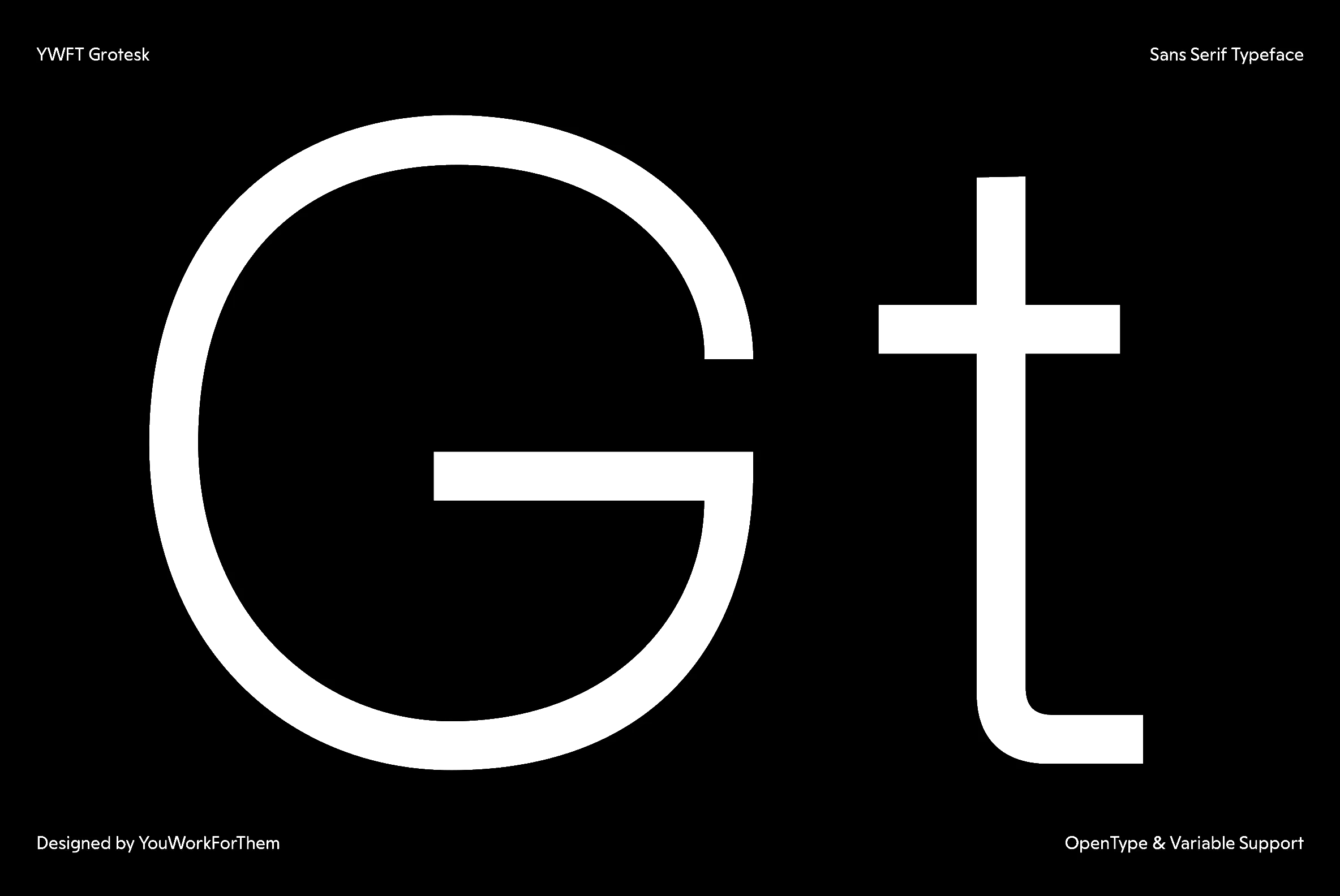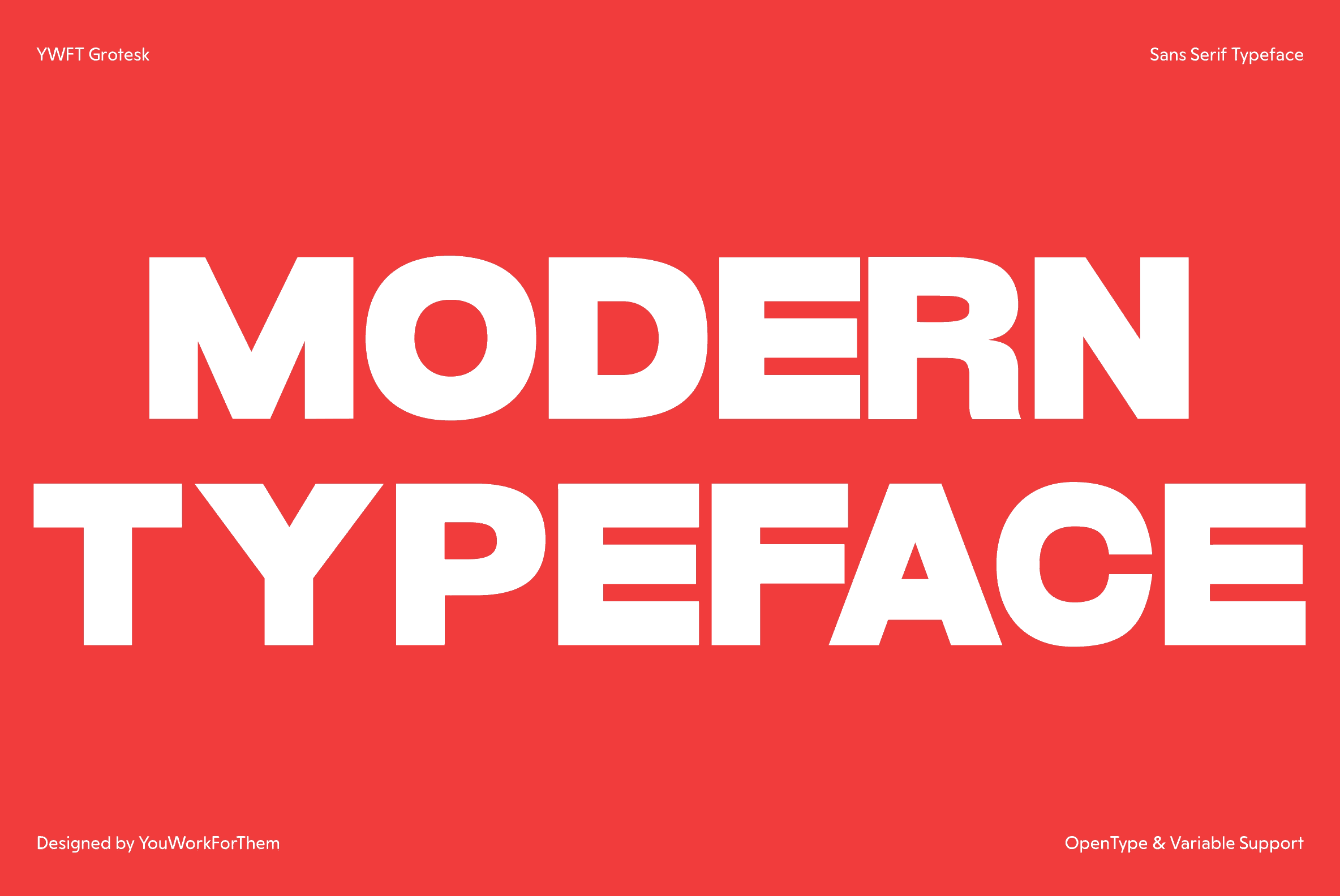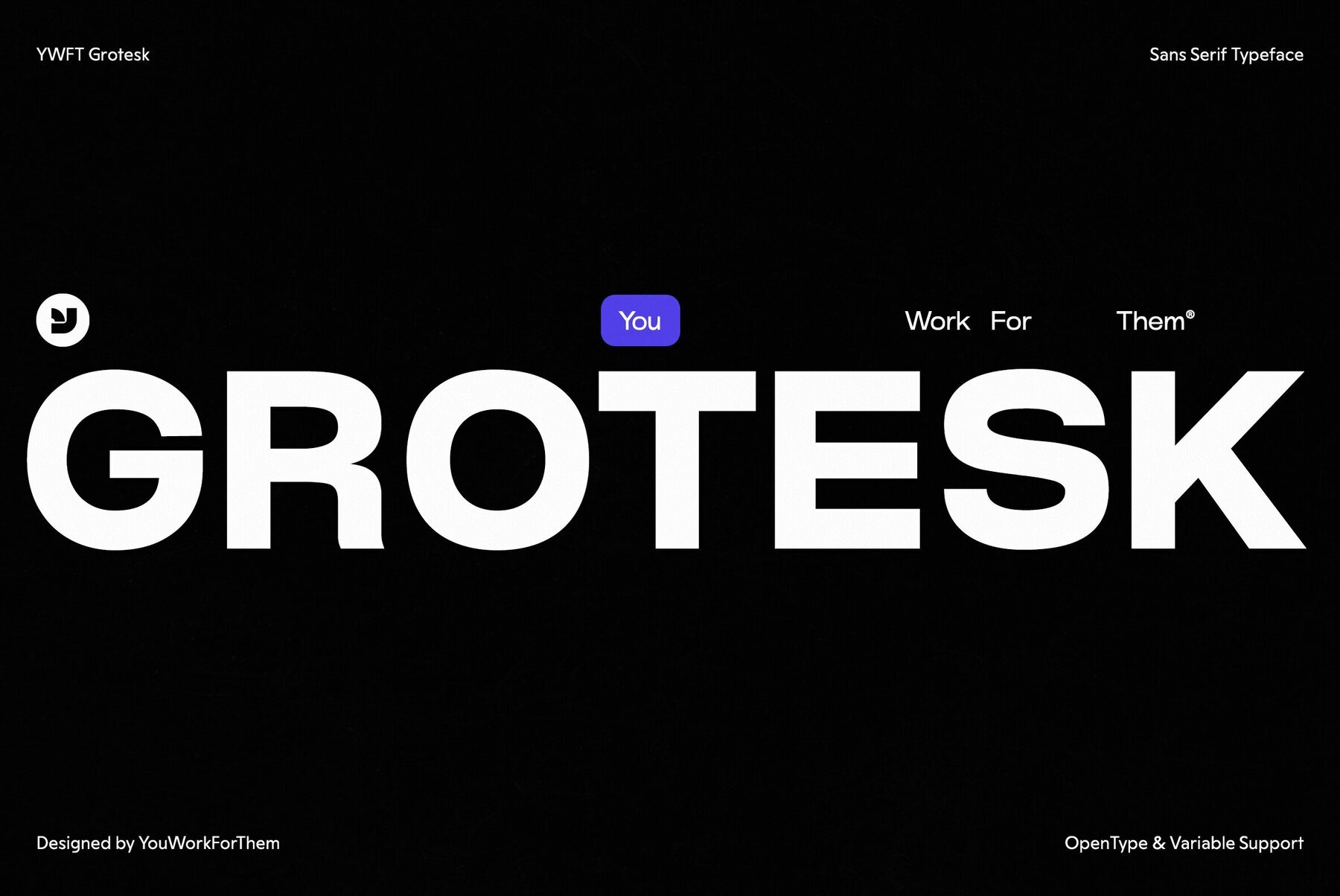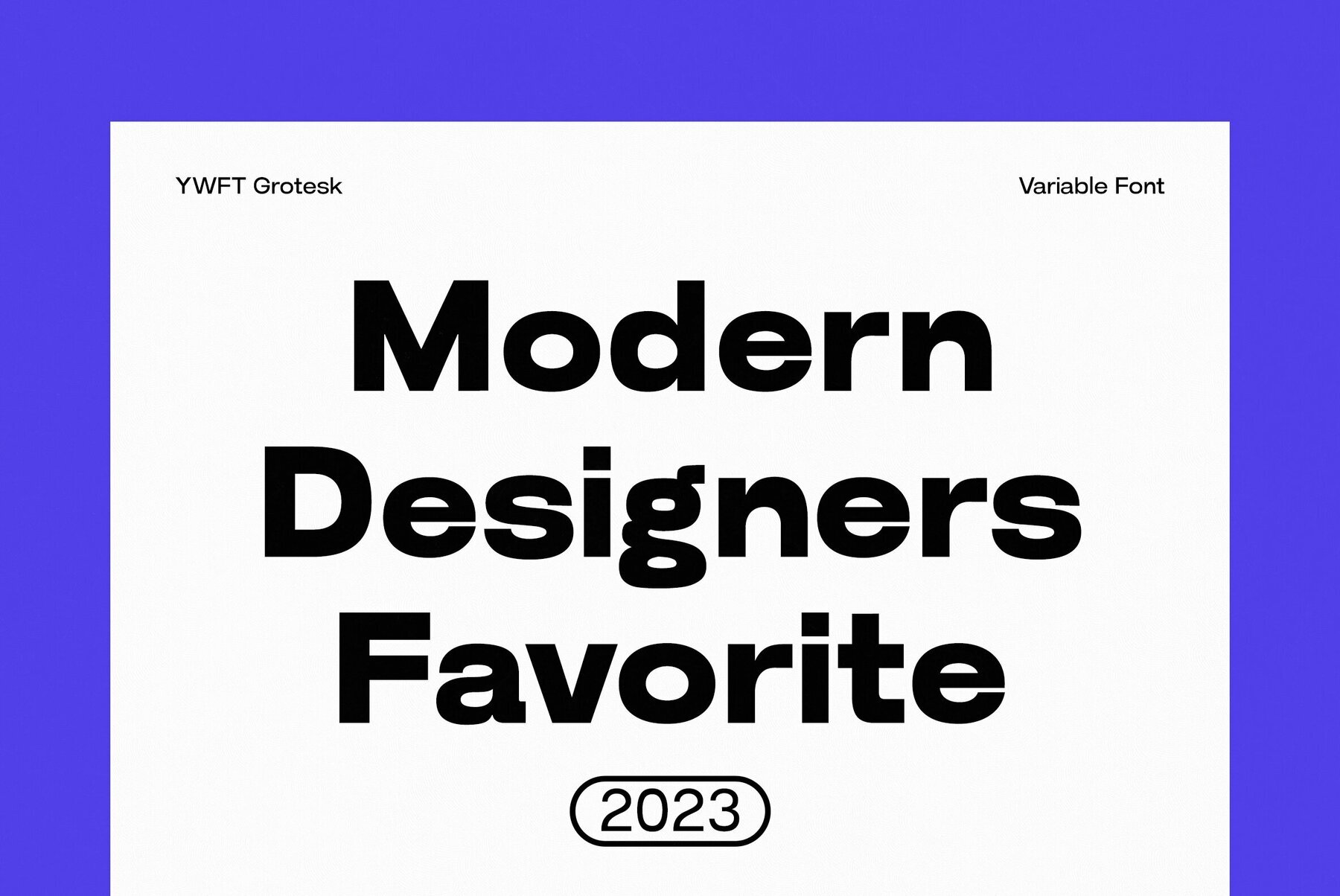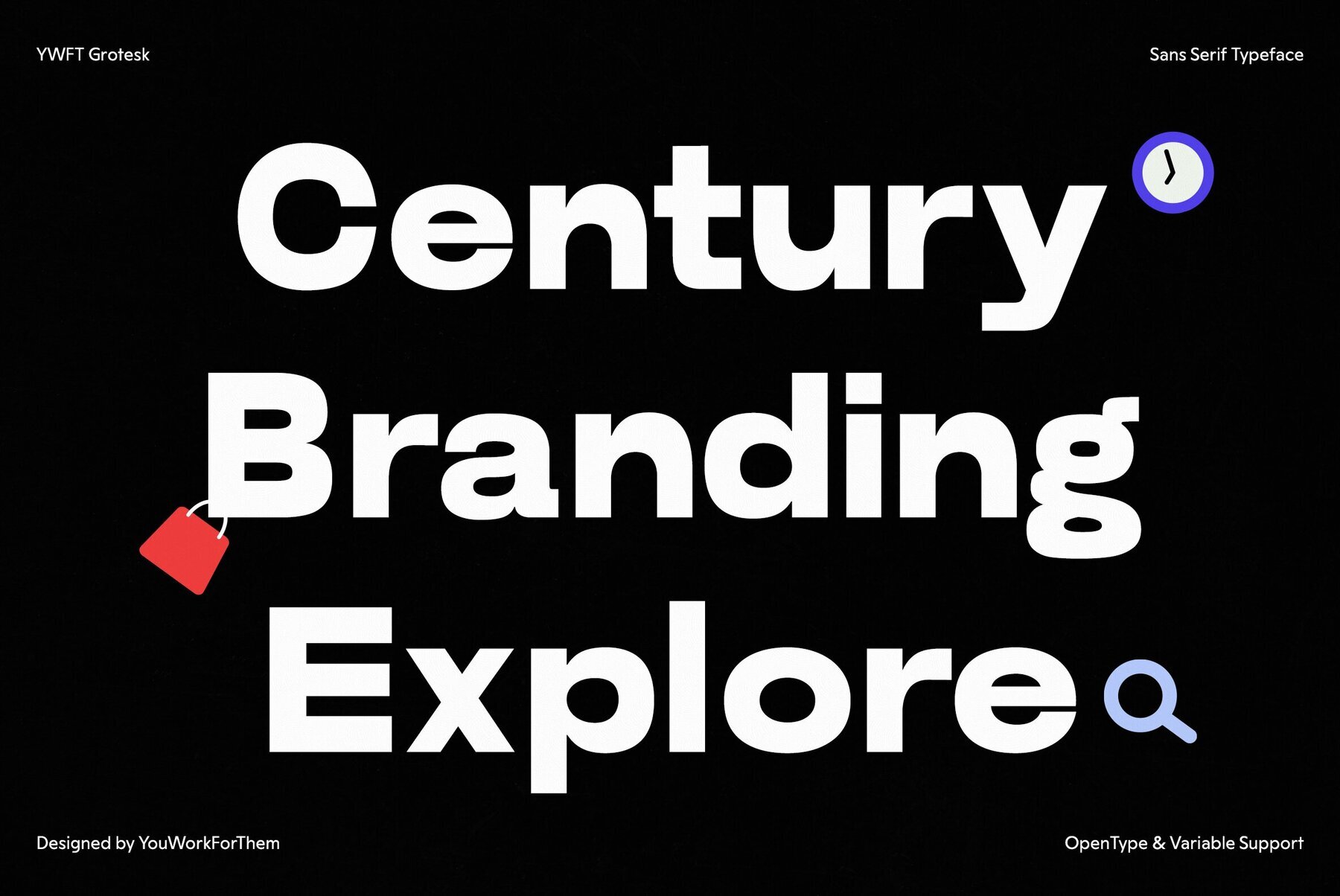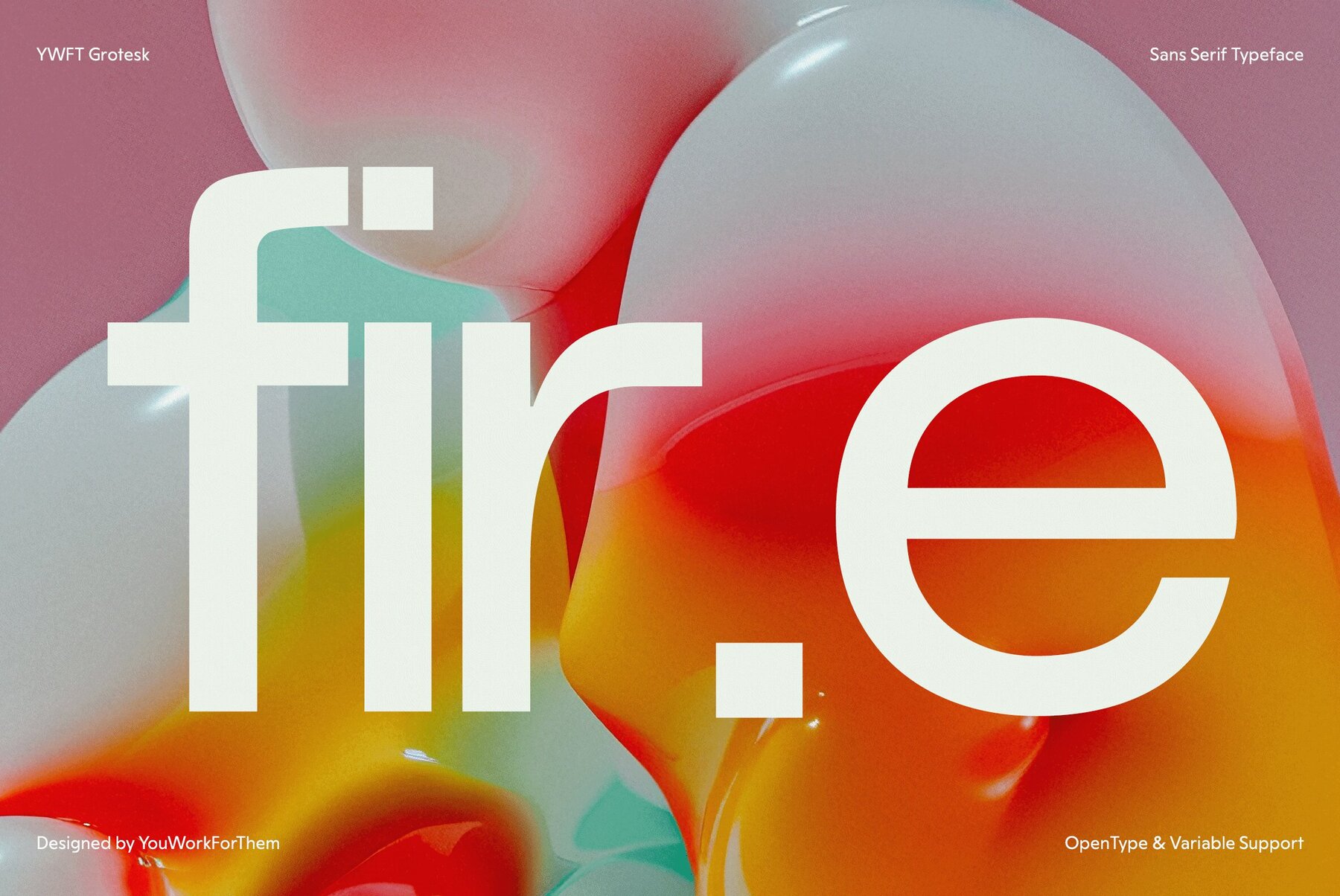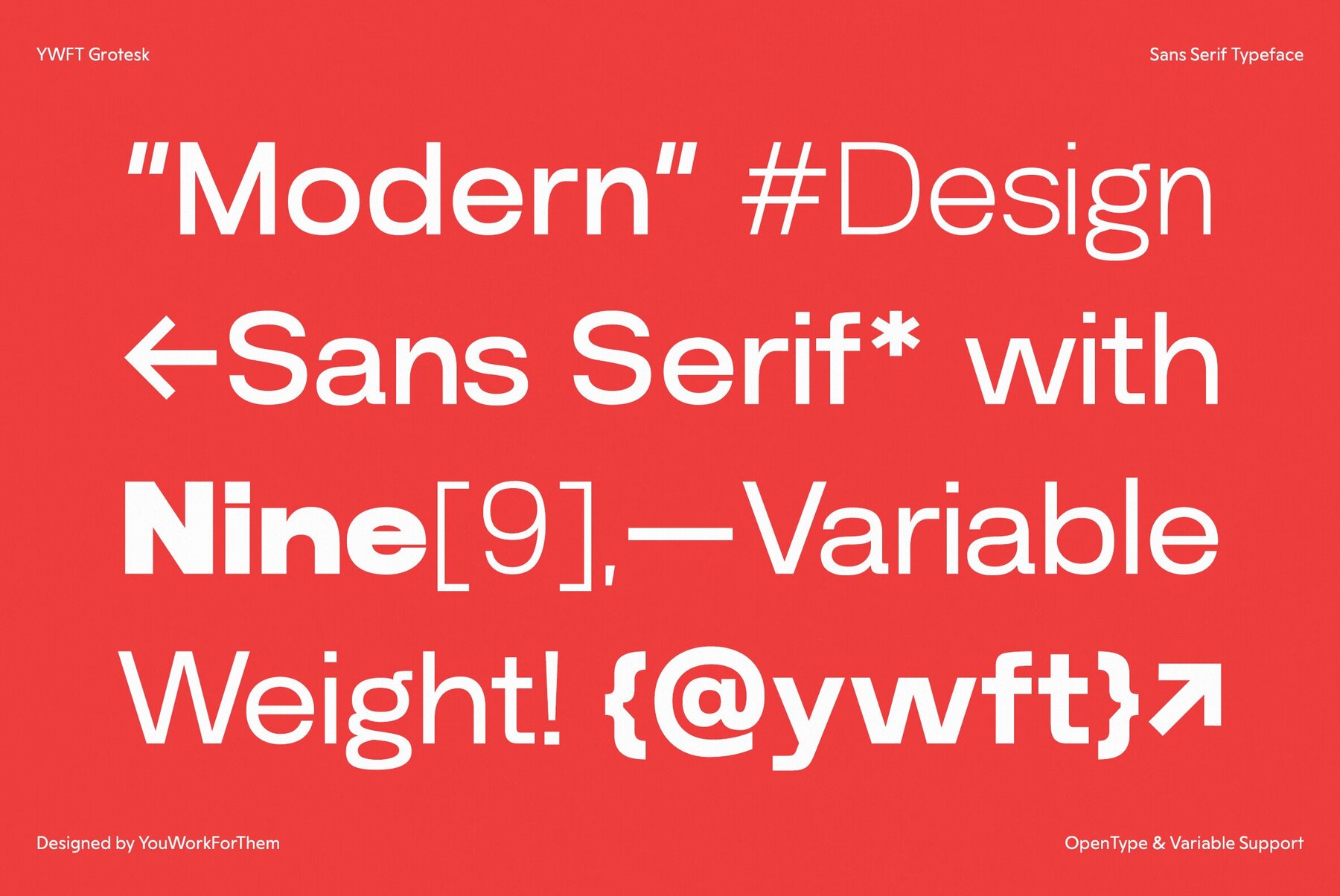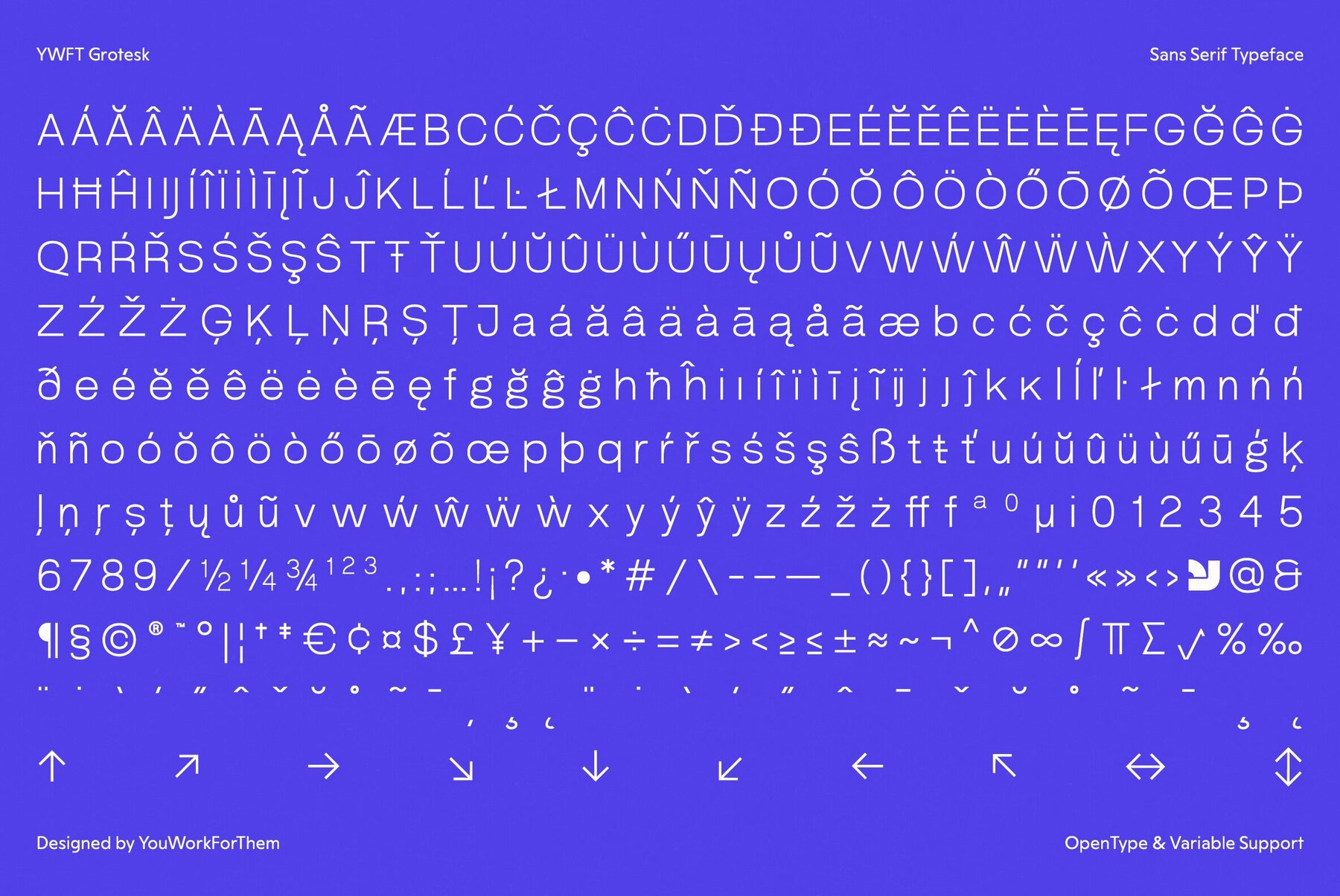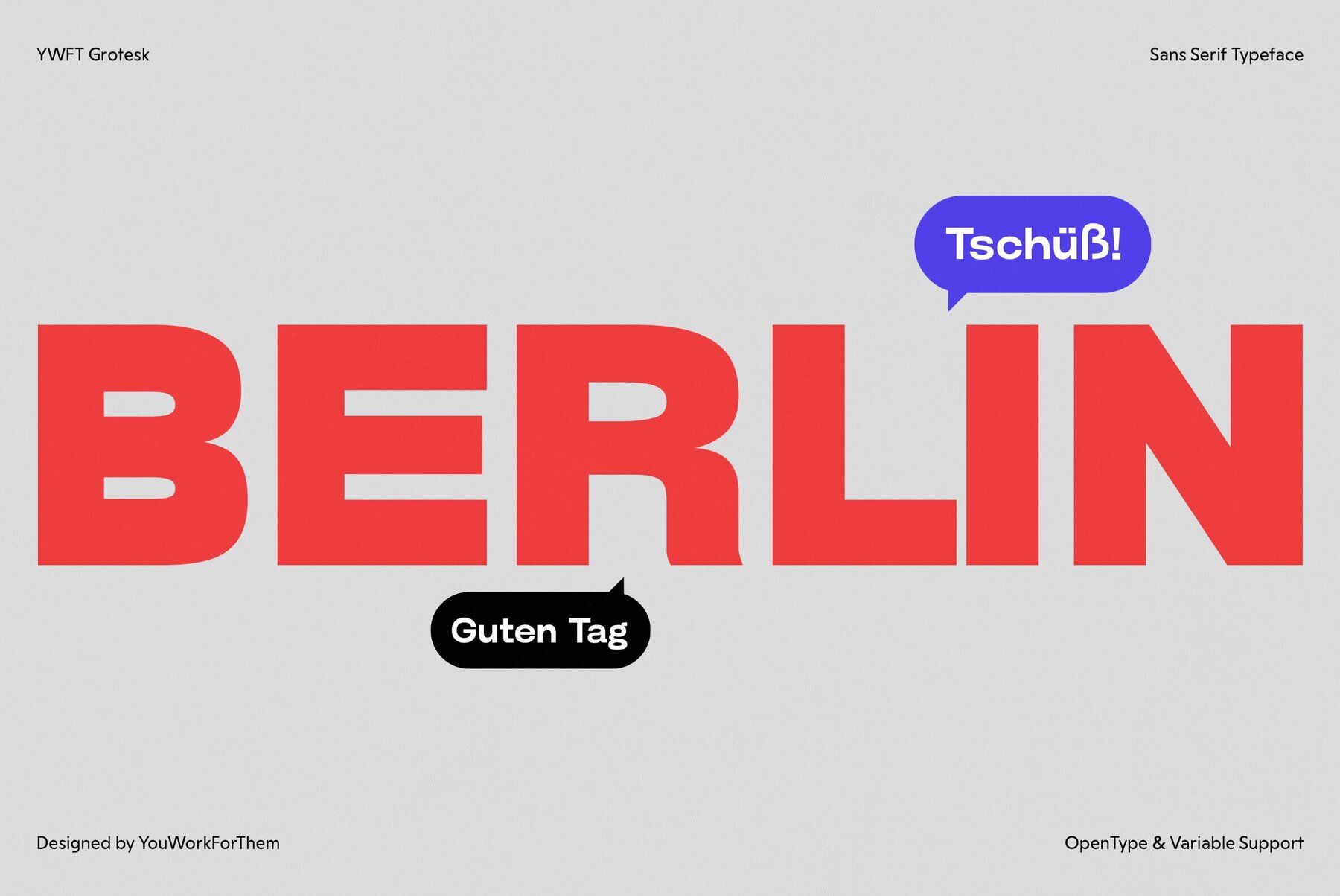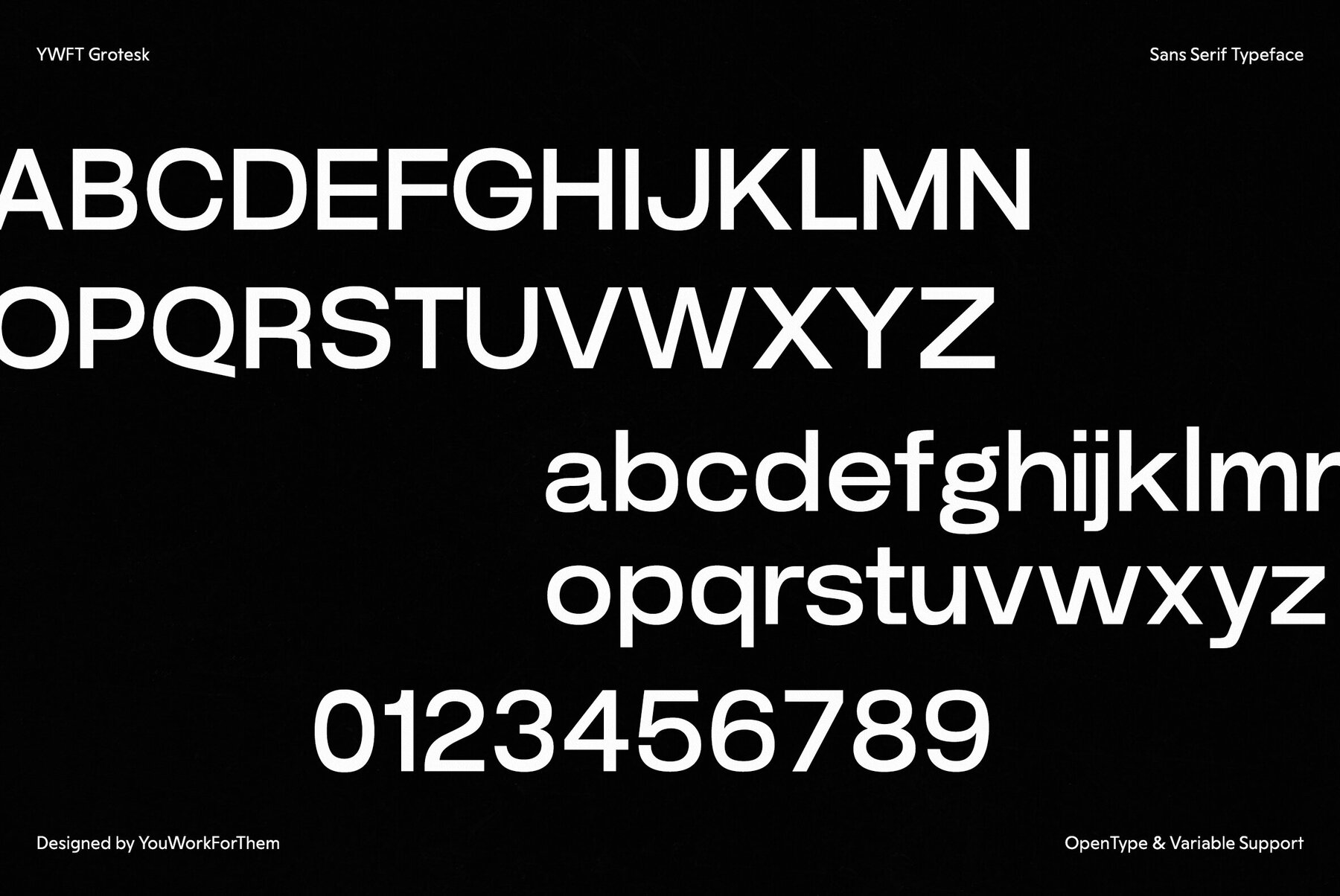
YWFT Grotesk Font
In the vibrant world of digital design, YWFT Grotesk emerges as a groundbreaking alternative to traditional grotesk sans-serif fonts. Crafted for the digital age, it brings a unique flair to social media, web, and interface design. Its stylish demeanor and unparalleled legibility set it apart, making it a perfect choice for website headers, online ads, and user interfaces. YWFT Grotesk is not just visually appealing; it resonates deeply, offering brands the chance to forge a modern, distinctive identity that merges contemporary style with timeless elegance. YouWorkForThem is committed to making exceptional design accessible to all. YWFT Grotesk stands as a testament to this commitment, offering affordability and straightforward licensing. We eschew traditional subscription models, providing both personal and commercial licenses to ensure that our fonts are accessible to everyone. This approach democratizes design, allowing high-quality typography to become a versatile tool for individual designers and large enterprises, offering an affordable alternative to older fonts like Helvetica without compromising on quality and style. YWFT Grotesk is more than a typeface; it's a modern tool reshaping the landscape of digital design. It breaks free from the limitations of century-old sans-serifs, offering a fresh perspective on typography. This font is indispensable for designers crafting impactful social media campaigns, engaging websites, or robust brand identities. It combines contemporary design aesthetics with practical functionality, making it the go-to choice for those at the forefront of digital design. Embracing YWFT Grotesk means embracing a future where design is not only seen but felt, creating a lasting impression in the digital world.Redefining Digital Aesthetics with YWFT Grotesk
Innovating Beyond Traditional Sans-Serifs: Embrace YWFT Grotesk